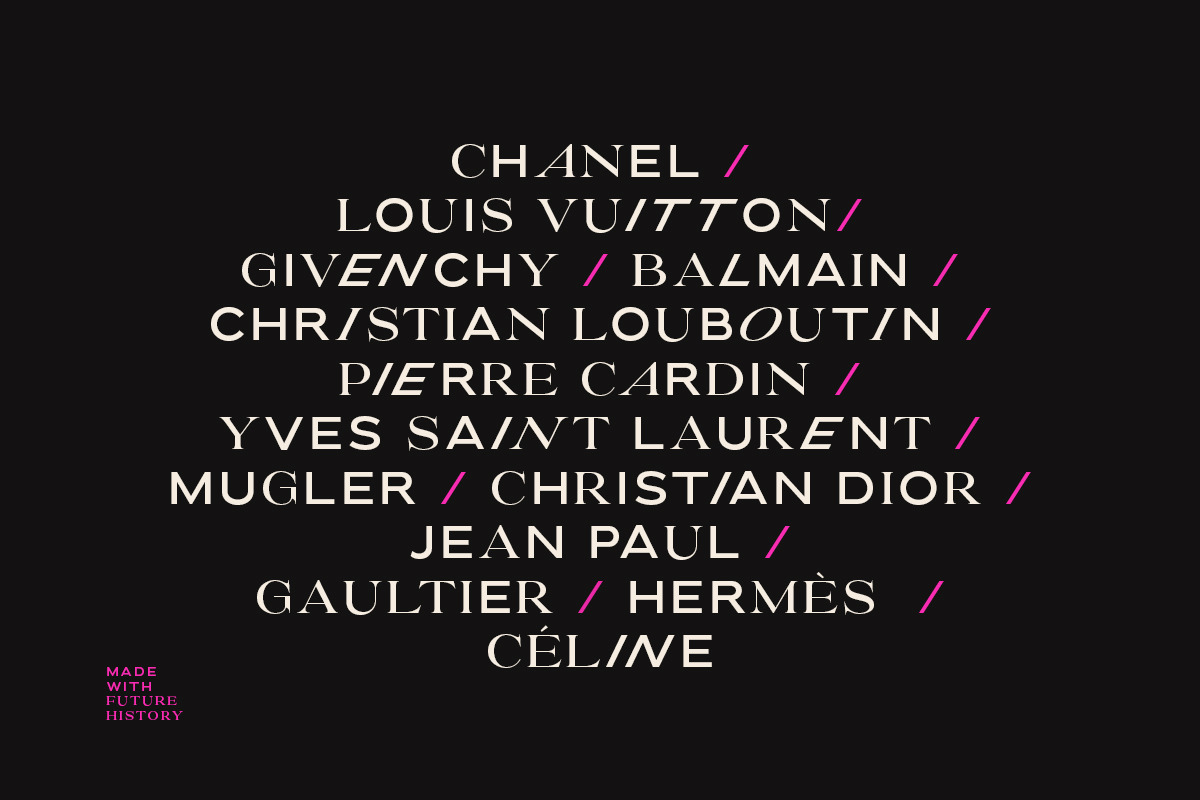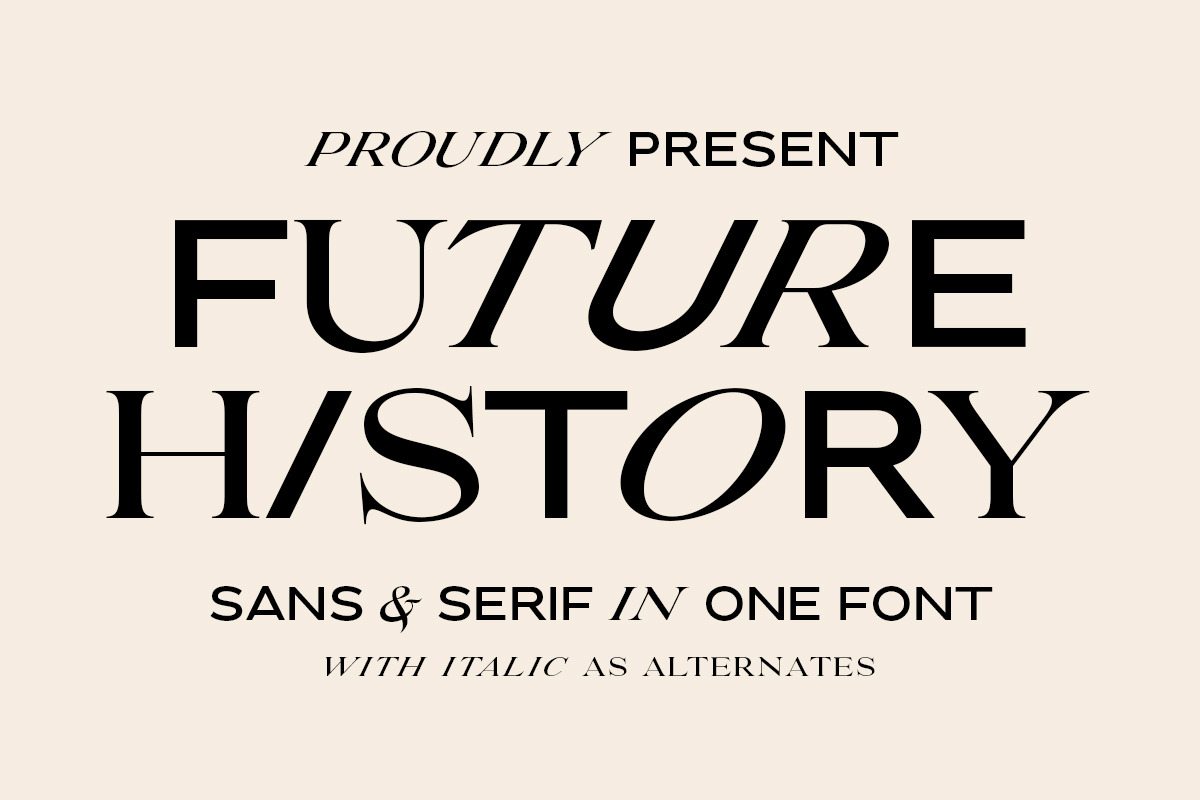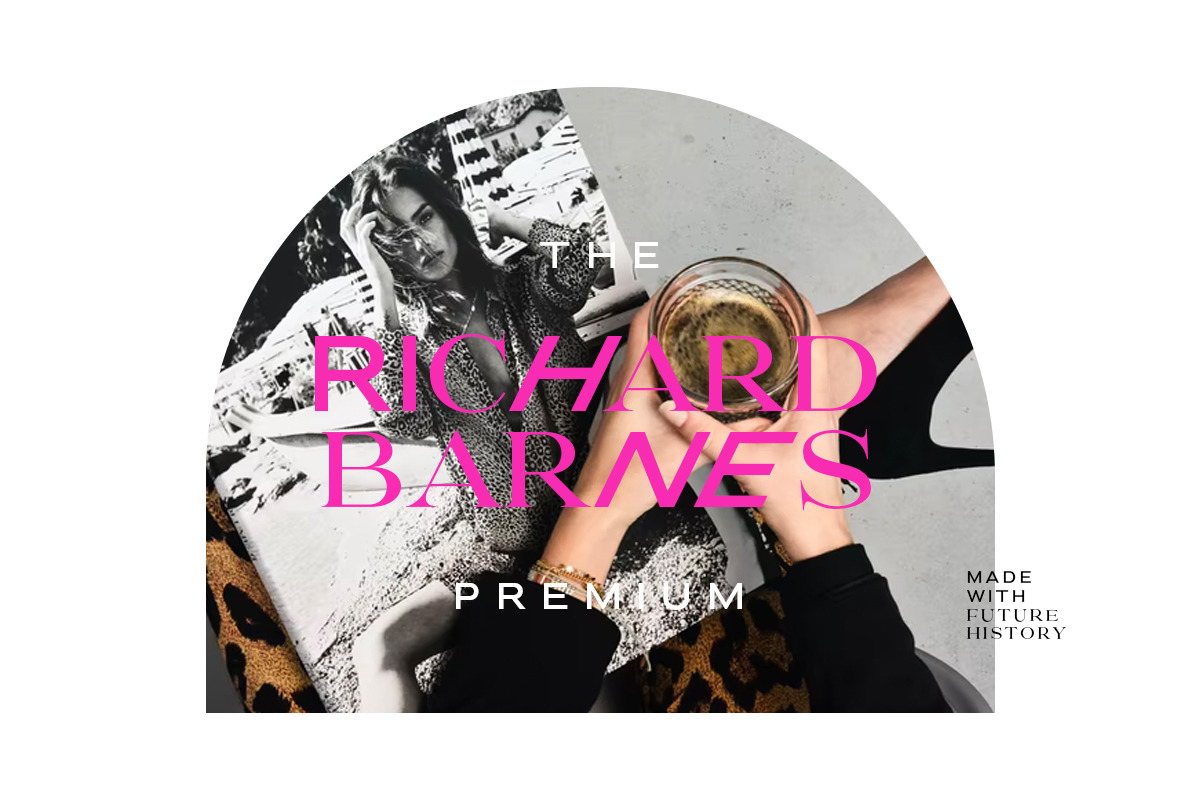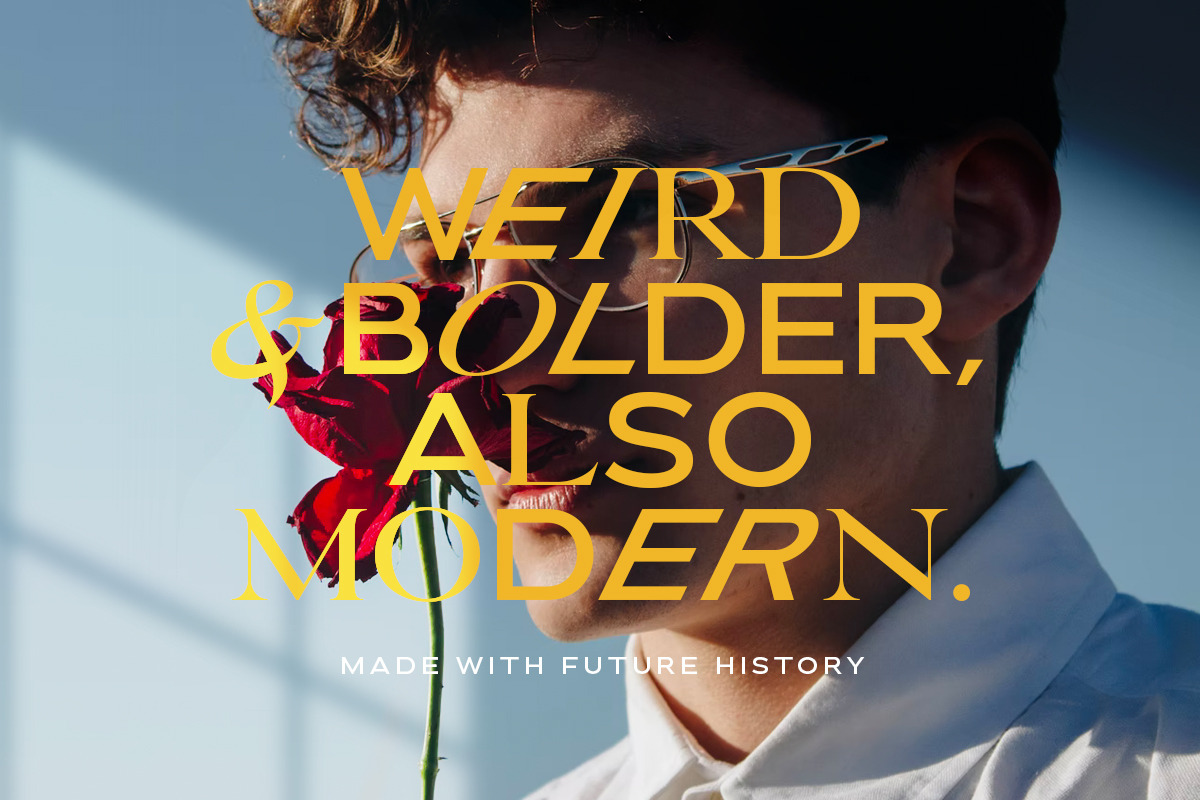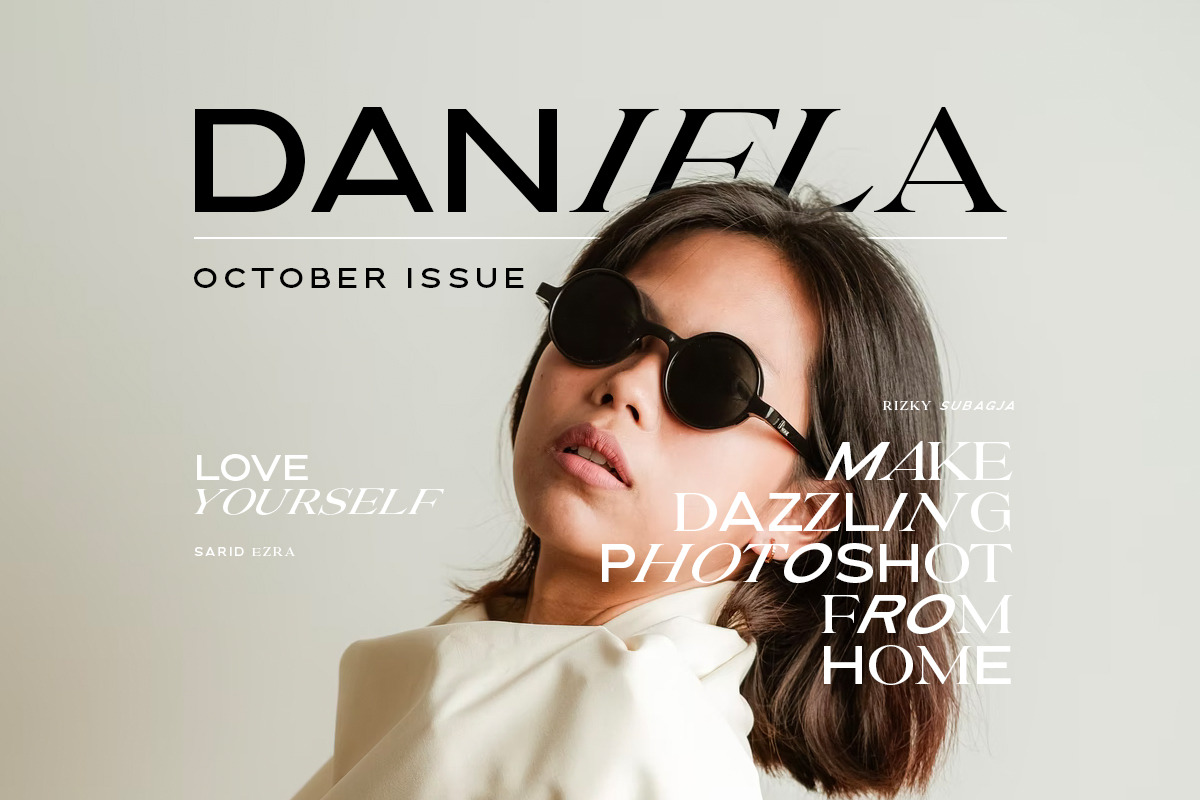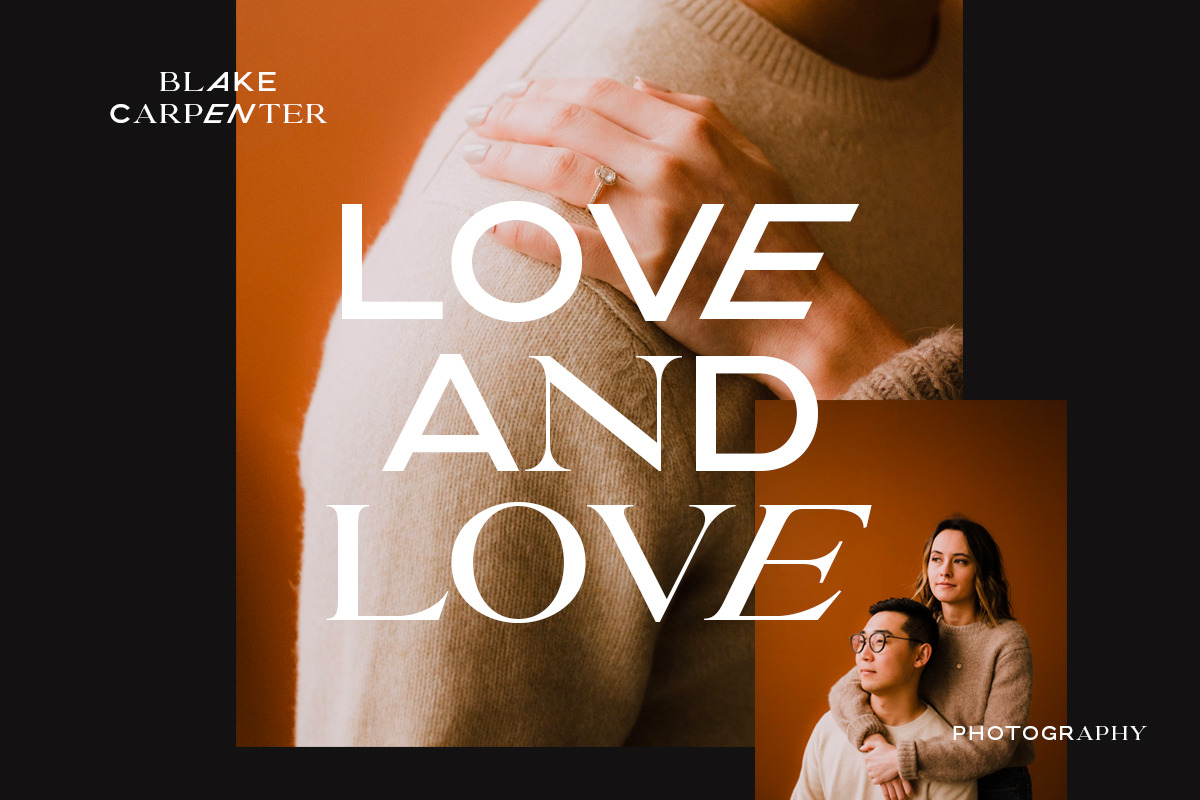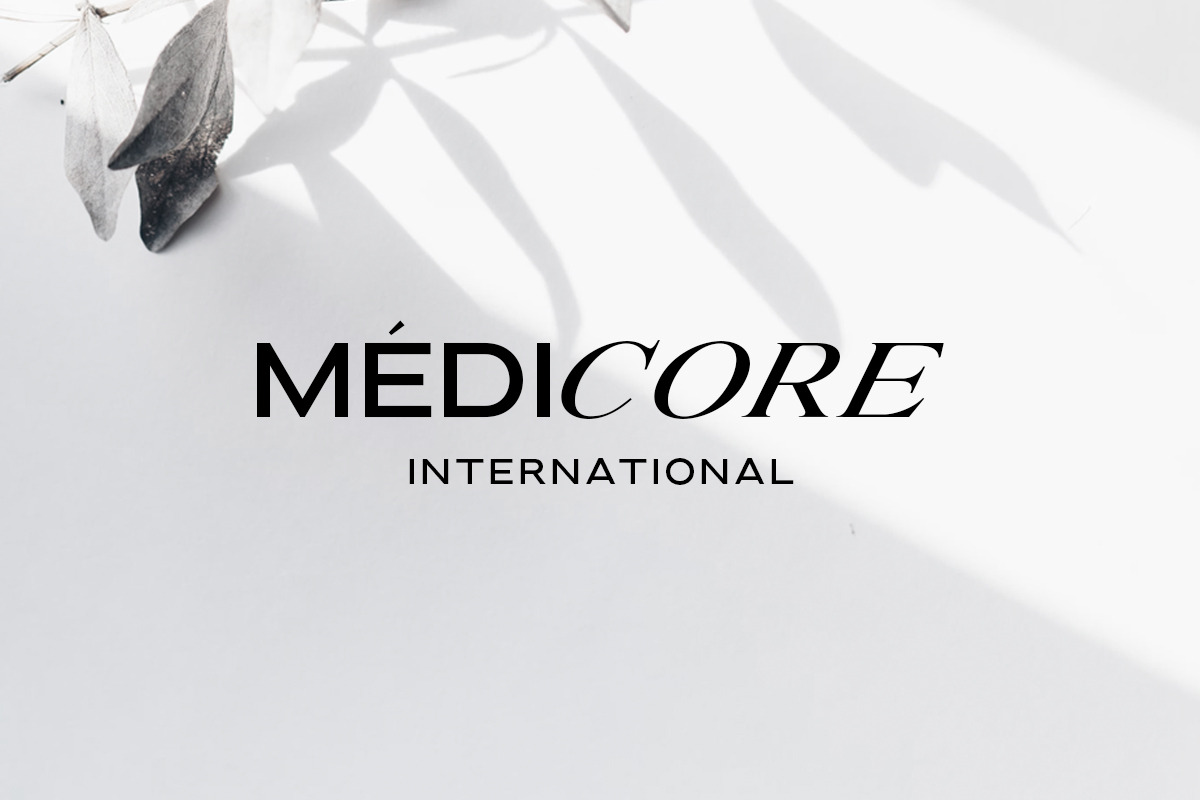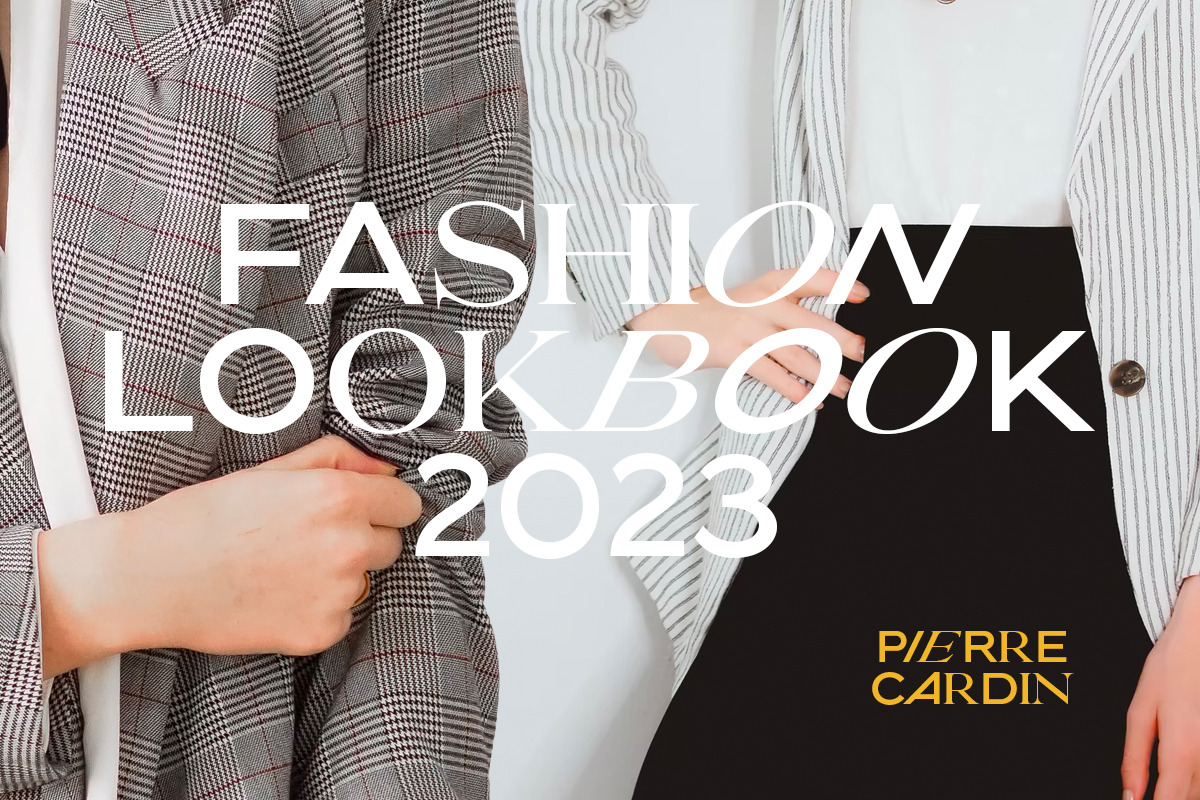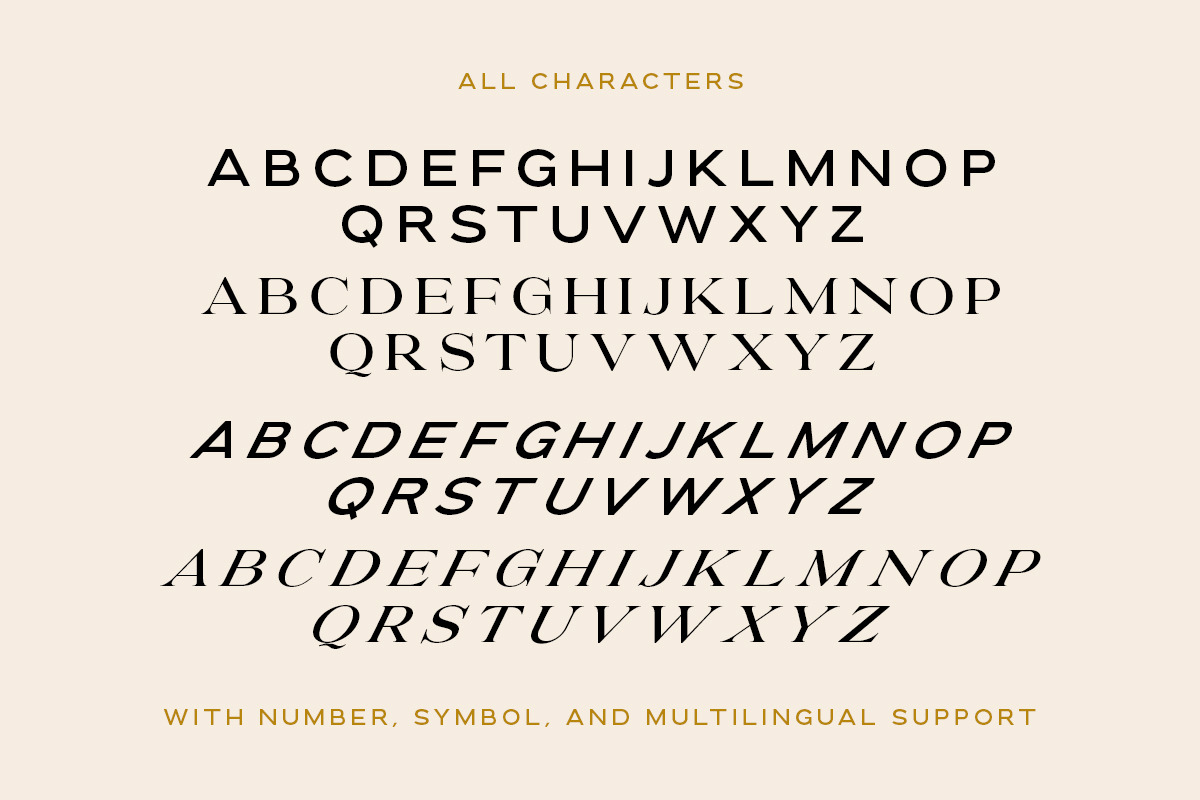
Future History - 2 in 1 Font
Introducing, Future History, a unique font with sans and serif in one font!
Future History is a modern and stylish font that combined sans and serif in one font. With sans as uppercase dan serif as lowercase. You can use the lowercase and uppercase in the same word that will make your text more stand out! And the best of this font is the italic version as the alternates which mean you can combine it all without worrying about the kerning! You can use this font for the magazine, poster, and suitable for headline. This font also support multi language.
- All Caps Font with different uppercase and lowercase
- Italic version as the alternates.
- Well Kerned.